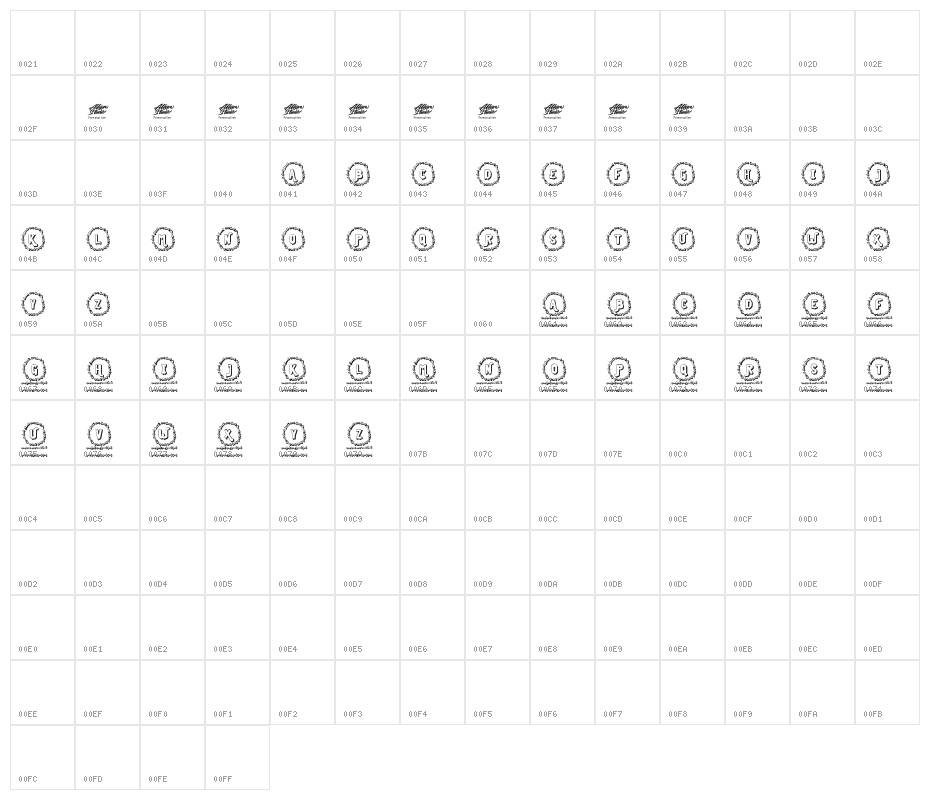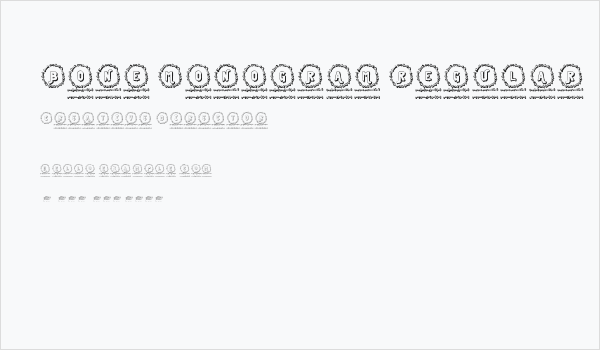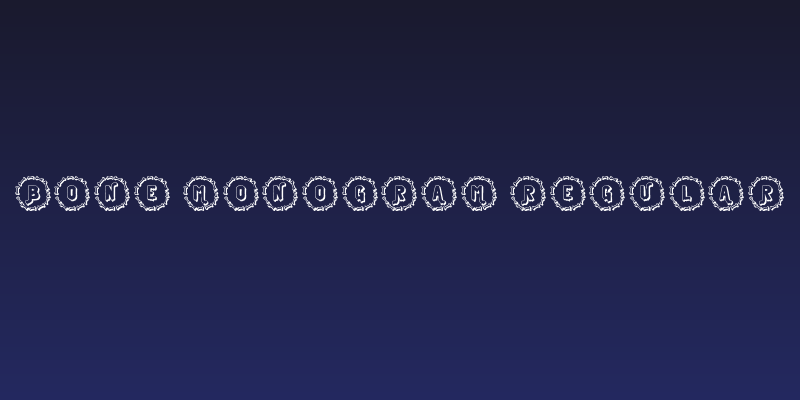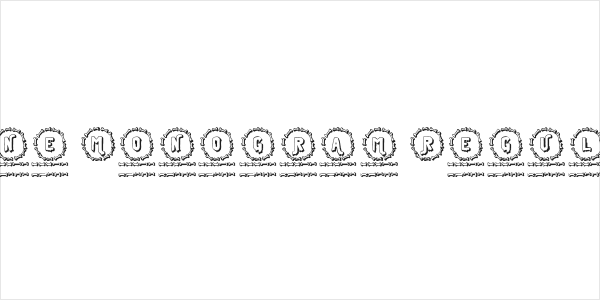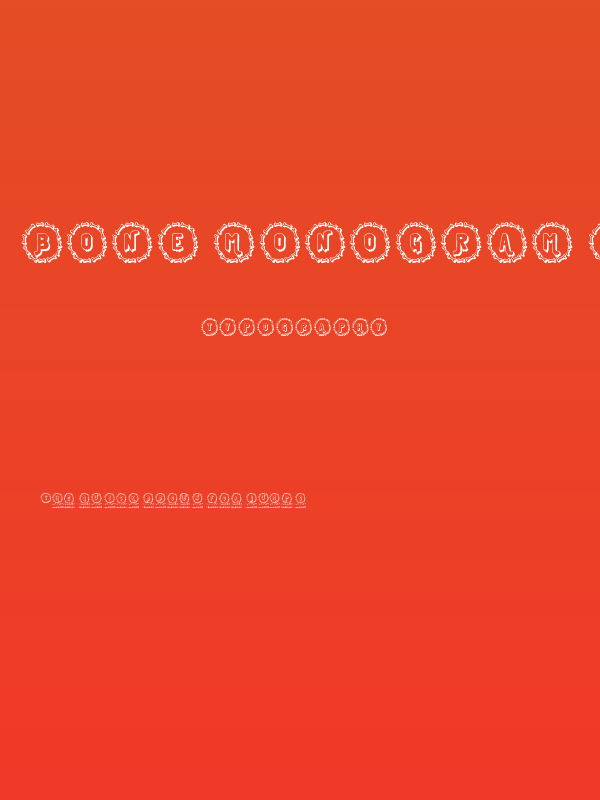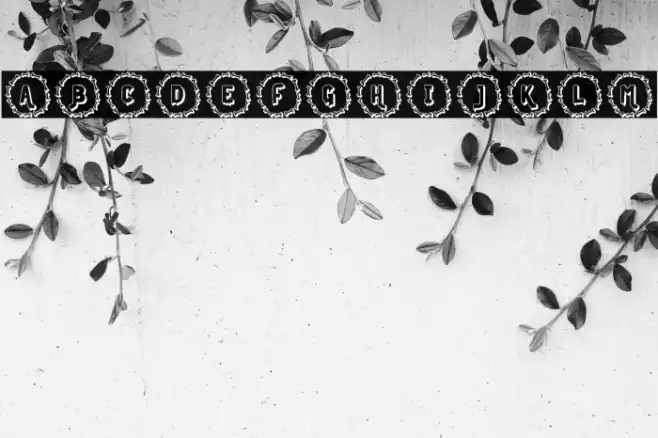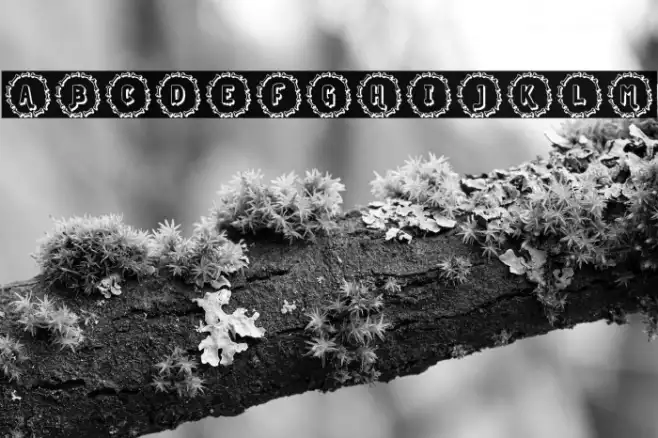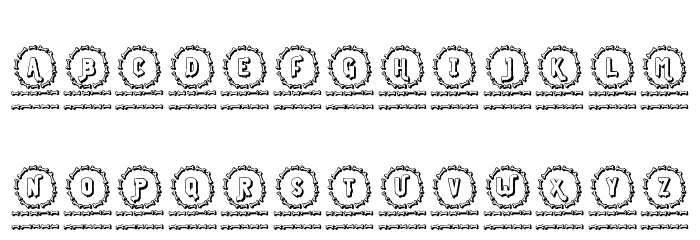
Bone Monogram Regular Font
Bone Monogram Regular Description
This font features a unique and decorative style, with each letter encased in an ornate, circular border resembling a wreath. The characters themselves are bold and uppercase, with a slightly playful and whimsical design. The intricate border adds a layer of complexity and elegance, making it ideal for projects that require a touch of sophistication and creativity. The font's distinct appearance makes it stand out, perfect for monograms, invitations, or any design that benefits from a personalized and artistic touch.
| Font Family | Bone Monogram |
| Use Case | Logos, Invitations, Monograms |
| Proposed Projects | Ideal for monograms, wedding invitations, personalized stationery, and decorative branding. |